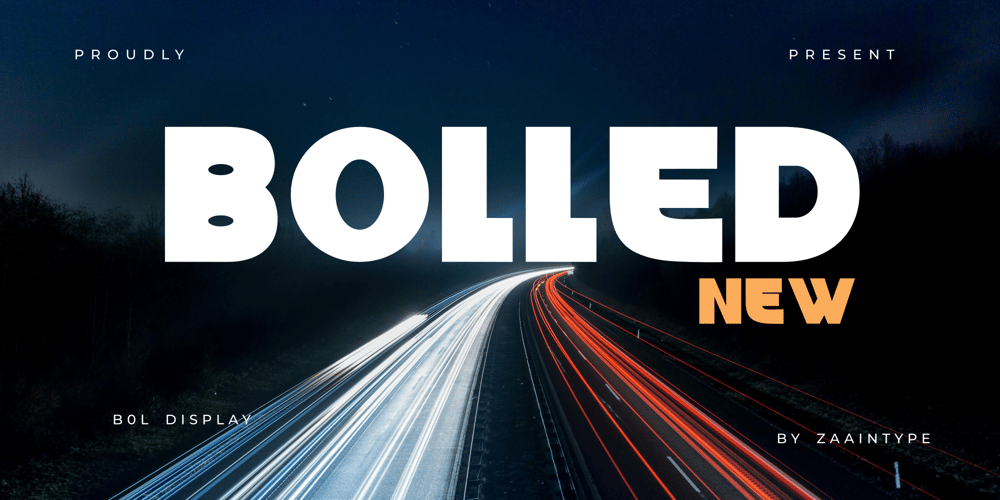
Bolled Font Family was designed by Ju Naen and published by Zaain Type. Bolled contains 2 styles and family package options. Bolled is a bold font with two style variations, oblique and regular, designed to create a strong and flexible impression in design. Bolled Oblique features thick, slightly slanted characters that give a dynamic and modern look, making it suitable for headlines or elements meant to stand out. Meanwhile, Bolled Regular displays a bold, upright, and stable shape, ideal for text that requires high readability and a professional feel. The combination of these two styles allows designers to blend dynamic and formal tones into one powerful and harmonious visual layout.